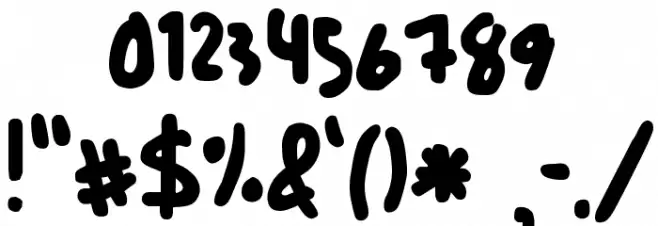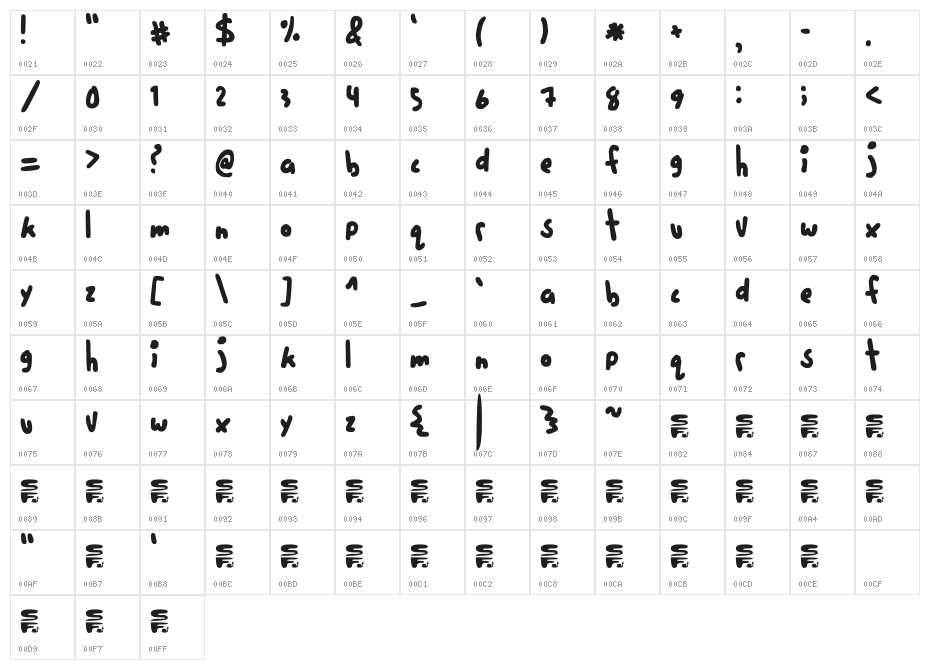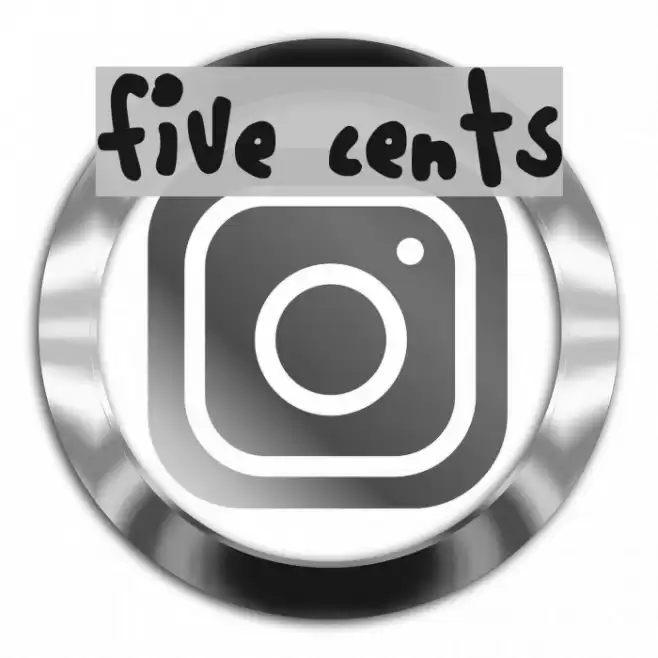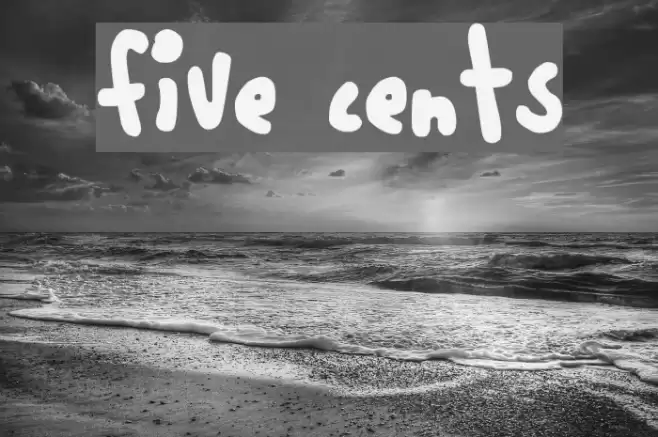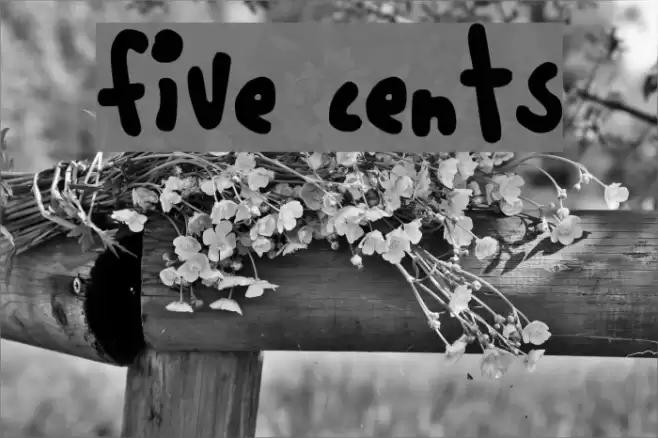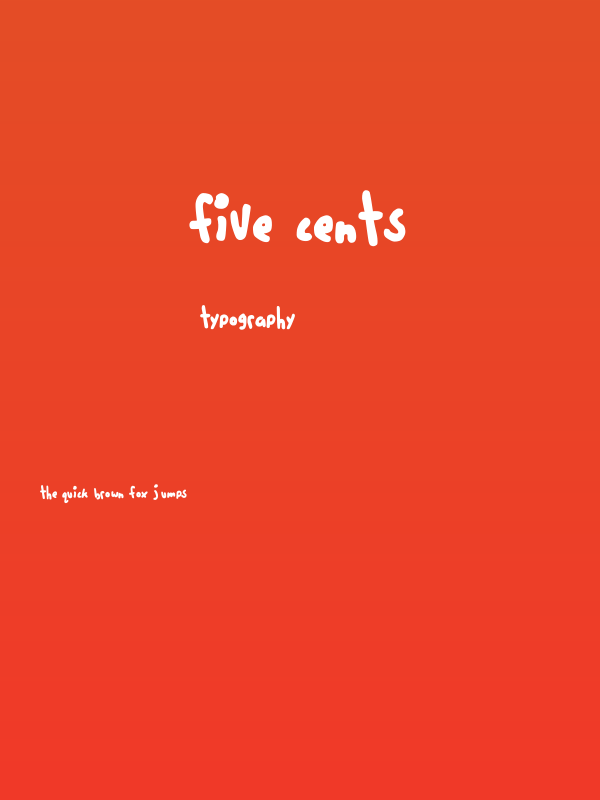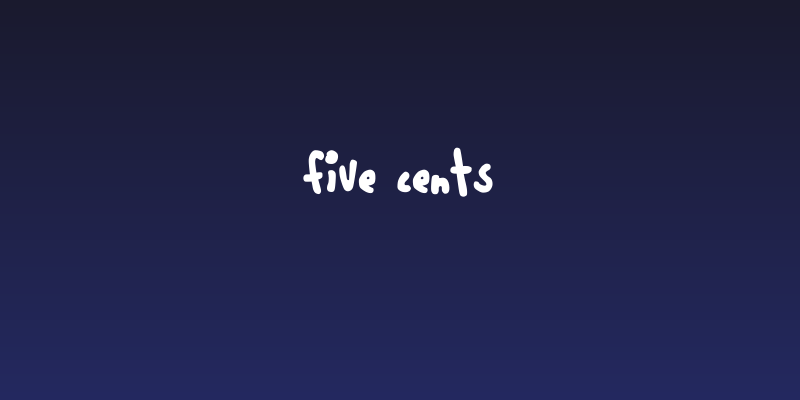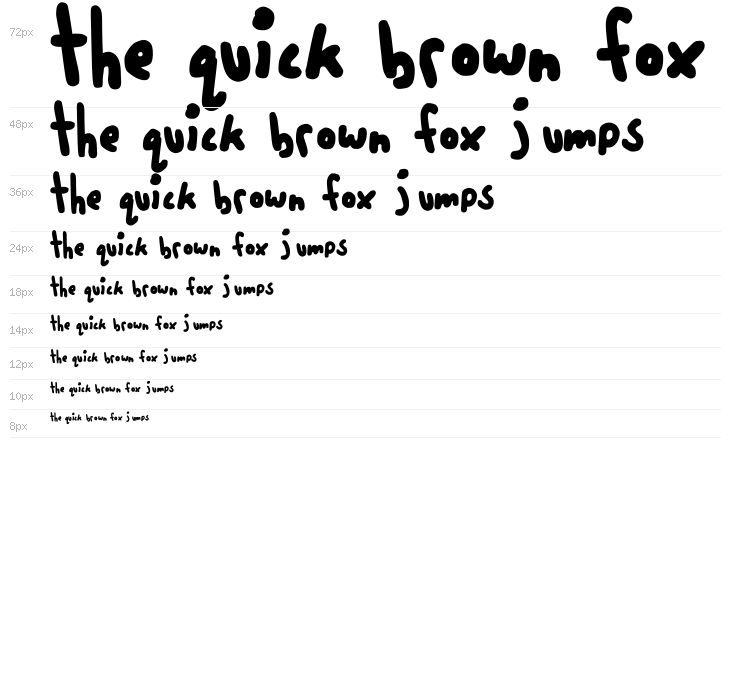
five cents Font
five cents Description
This playful and bold font features a handwritten style with thick, rounded strokes that give it a friendly and approachable appearance. The characters are slightly irregular, adding to the casual and informal feel. The uppercase and lowercase letters maintain a consistent style, with a slight slant that suggests movement and energy. The numbers and special characters are equally bold and maintain the same playful aesthetic. This font is ideal for projects that require a fun and engaging look, such as children's books, posters, or informal branding.
| Proposed Projects | Ideal for children's books, playful posters, informal branding, and creative invitations. |